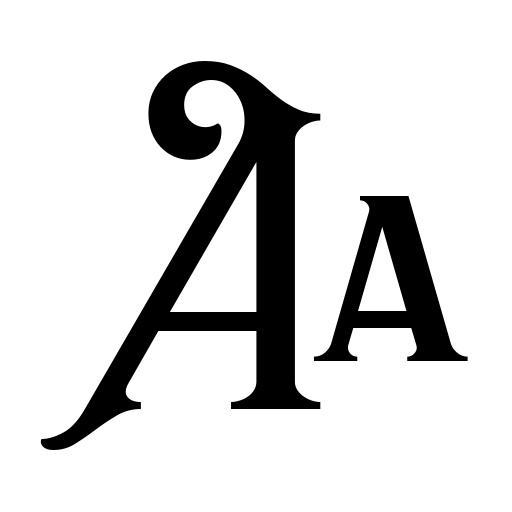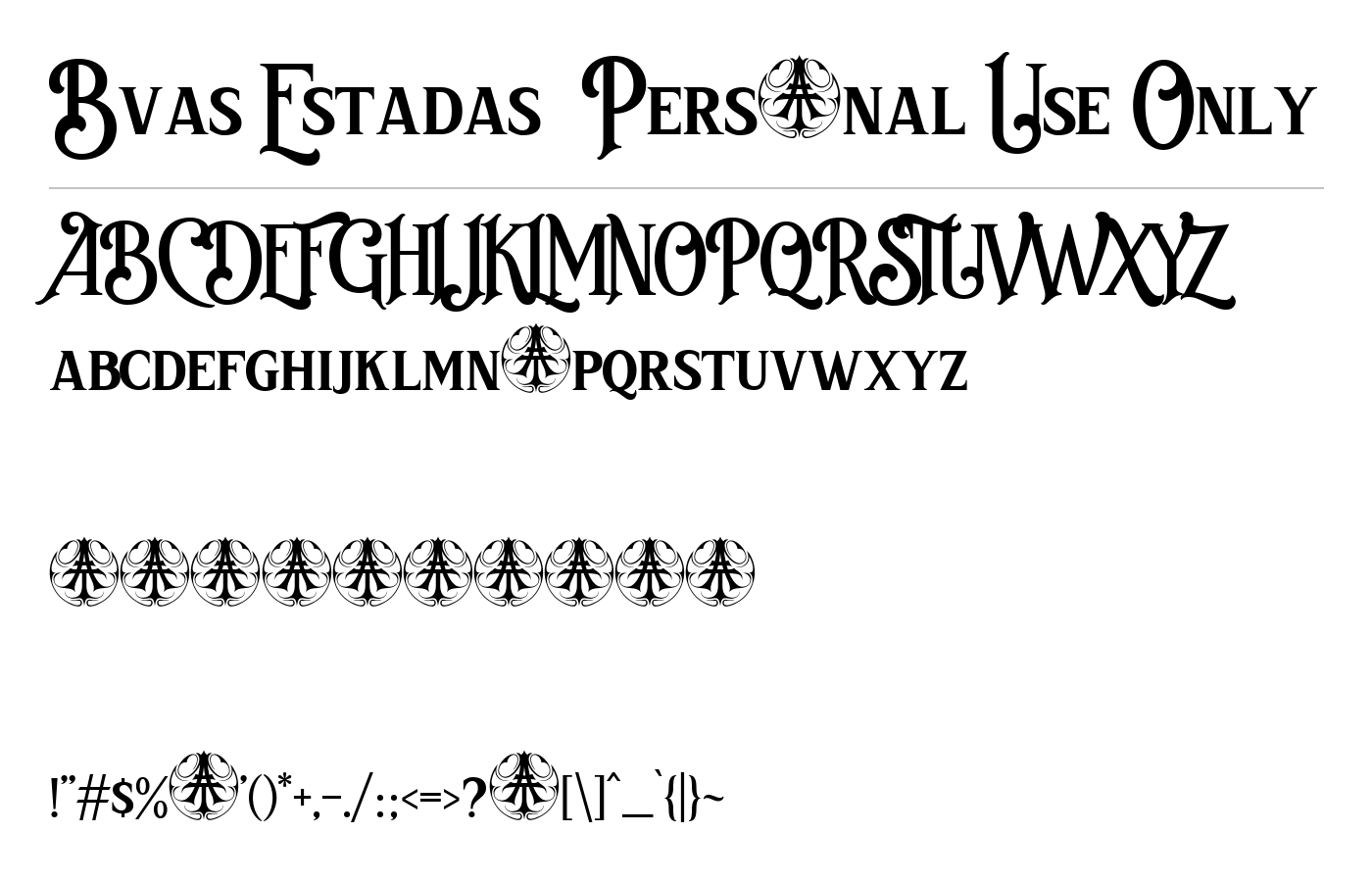
Bvas Estadas Personal Use Only is an ornate serif font with strong vintage and decorative qualities, featuring high contrast between thick and thin strokes and intricate, stylized letterforms. Its tall, narrow characters and elegant flourishes give it a distinctive, formal personality that works well for logos, packaging, and headlines in luxury, fashion, or editorial contexts where a bold, artistic statement is desired. This font’s unique design adds sophistication and flair, making it ideal for projects that seek to convey elegance and historical charm.
Bvas Estadas Personal Use Only Font
About Bvas Estadas Personal Use Only Font